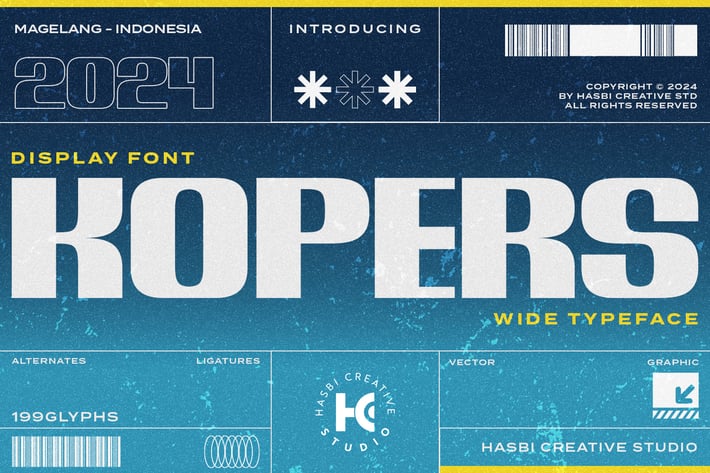
Hc Kopers Display Font
Kopers Display is a bold, abstract hand-drawn font that adds character and creativity to titles and headlines. Perfect for movie posters, social media, and branding across food, sports, and automotive industries, it delivers dynamic, expressive style with its unique, handcrafted strokes.
This font is:
- Unique and eye-catching
- Playful and fun
- Versatile
- Easy to use